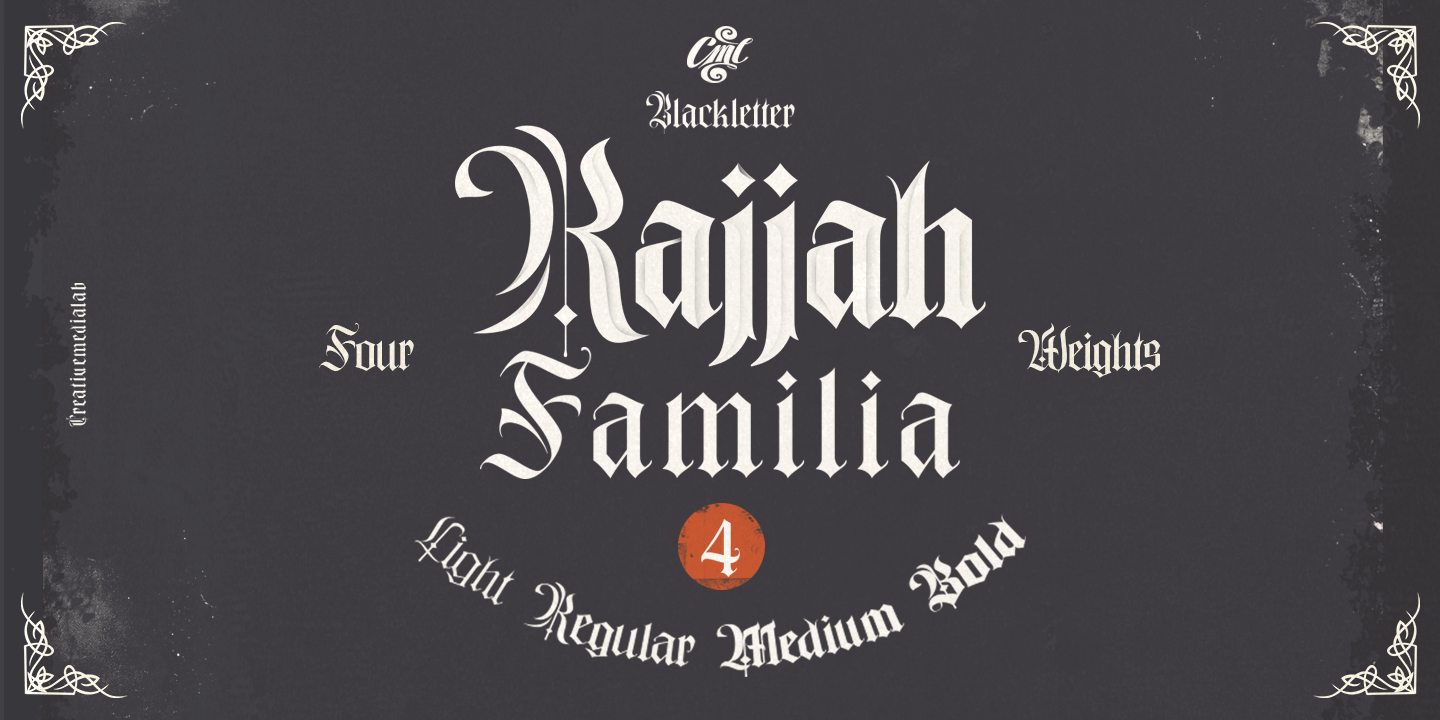
This blackletter typeface is perfect for tattoo lettering, gothic branding, music posters, clothing labels, and social media graphics.
The Rajjah Familia Font is exciting because its gothic, horror-inspired design blends medieval elegance with modern readability, creating striking, versatile visuals.
Its font family includes Rajjah Familia Light, Rajjah Familia Regular, Rajjah Familia Medium, and Rajjah Familia Bold, offering diverse weights for creative projects.
Searching for a font that merges gothic tradition with contemporary flair? Rajjah Familia Font Free Download is an ideal choice for designers seeking a bold, blackletter typeface. Designed by Kadek Mahardika and published by Creativemedialab, this font draws inspiration from Gothic script used in Western Europe from 1150 to the 17th century. Its neat, readable design makes it perfect for modern creative trends, from tattoo lettering to music and sports branding, ensuring standout visuals in both digital and print projects.
The Rajjah Familia Font excels in applications requiring a dramatic, gothic aesthetic. It’s a top pick for tattoo designs, where its intricate, bold letterforms add an edgy, artistic vibe. Music posters for genres like metal or punk benefit from its horror-inspired style, creating eye-catching promotional materials. Clothing brands use it for labels and apparel graphics to convey a rebellious, vintage look. Social media creators leverage its bold design for Instagram posts, TikTok overlays, or YouTube thumbnails, driving engagement with its unique charm. Its versatility also suits calligraphy and product packaging.
What makes the Rajjah Familia Font Free Download so captivating is its ability to balance gothic mystique with modern clarity. Available in OpenType and TrueType formats, it includes alternates and ligatures, offering creative flexibility in tools like Adobe Illustrator or InDesign. Supporting multiple languages, it’s ideal for global projects. Its clean yet ornate design ensures readability while delivering a powerful visual impact, making it perfect for headlines, logos, or decorative text that demands attention.
The Rajjah Familia Font family includes Rajjah Familia Light for subtle accents, Rajjah Familia Regular for balanced text, Rajjah Familia Medium for mid-level emphasis, and Rajjah Familia Bold for striking headlines or logos. This range ensures cohesive, dynamic designs across applications. For commercial use, a license is required, available at https://www.myfonts.com or https://www.fontspring.com. Free downloads are for personal use only, so avoid unverified sites to ensure safety and compliance.